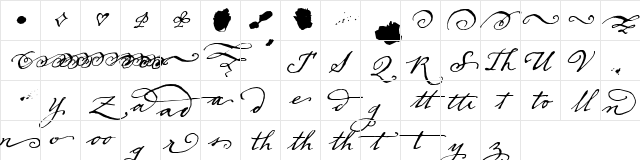
Dear Sarah Swash Free Font
Dear Sarah Swash
Style: Swash
Designer: Christian Robertson
Design Context for Dear Sarah
Dear Sarah flows with the natural rhythm of handwritten lettering, making it ideal for designs that call for warmth and personal expression.